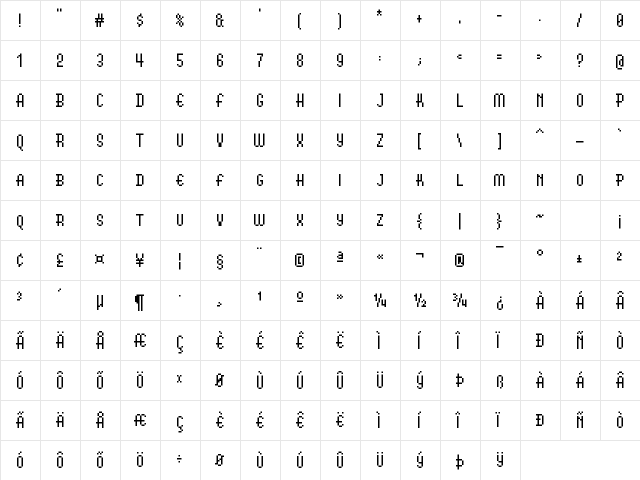
LunchMenu Medium
Design Context for LunchMenu Typeface
LunchMenu offers clean, dependable letterforms without strong stylistic allegiance, making it a practical choice for designers who need flexibility.